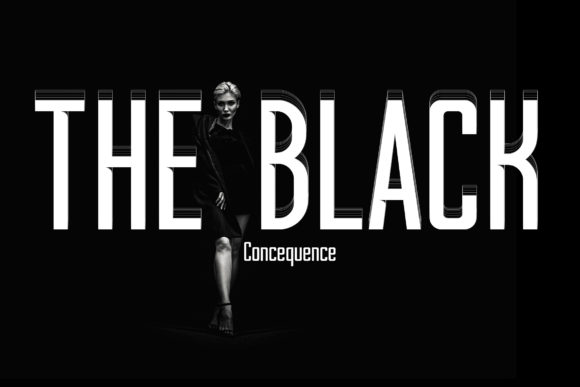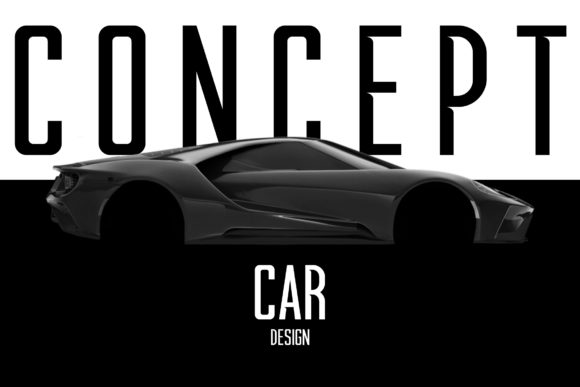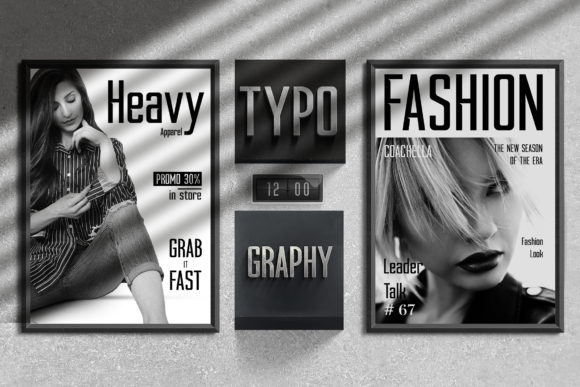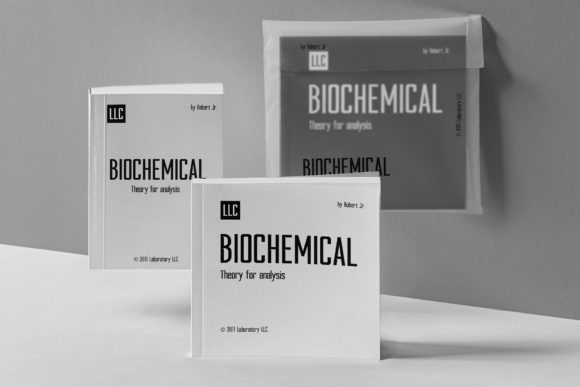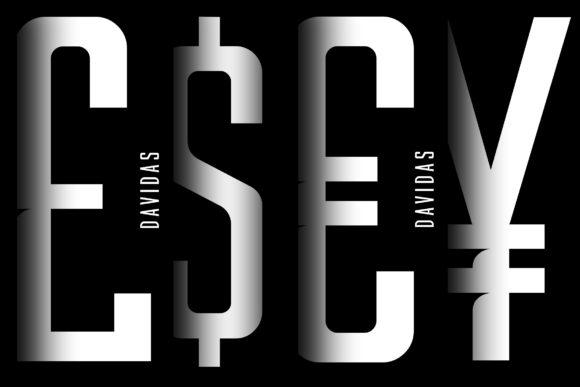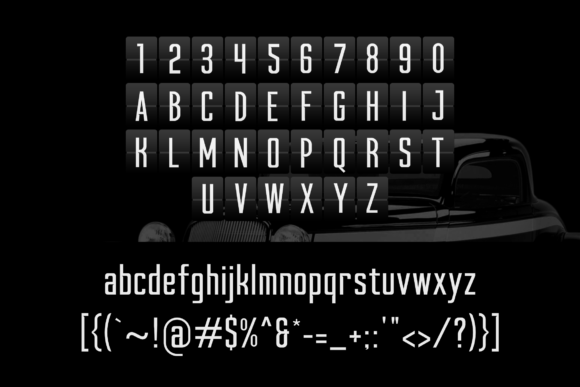
Introduction to Davidas Font Font
Fonts play a crucial role in design, and the Davidas Font font is a typeface that brings both character and versatility to any project. Whether you’re working on a branding project, a website, or a print design, the Davidas Font font offers a unique style that can elevate your work.
| 📌 Font Name | Davidas Font |
| 👤 Author | Typia Nesia |
Davidas is a condensed sans serif font.
It has a unique and strong look that makes it perfect for logos, branding, marketing, social media posts, quotes, and much more .
Key Features of Davidas Font Font
The Davidas Font font is more than just a typeface – it’s a design tool that helps you communicate your message with style and clarity. Its unique character set and versatile design make it suitable for a wide range of applications, from elegant invitations to bold headlines.
With its carefully crafted letterforms and balanced proportions, the Davidas Font font ensures readability and visual appeal across all mediums.
The Davidas Font font stands out with its unique design, exceptional readability, and versatility across various design applications.